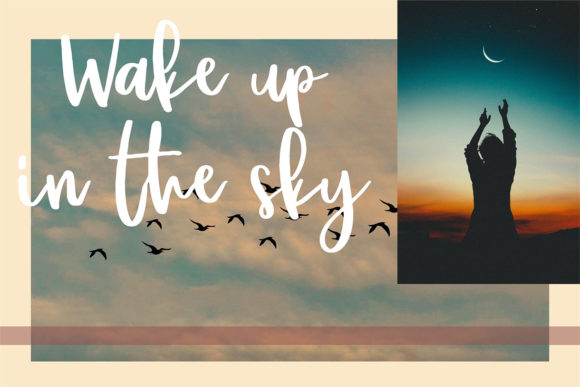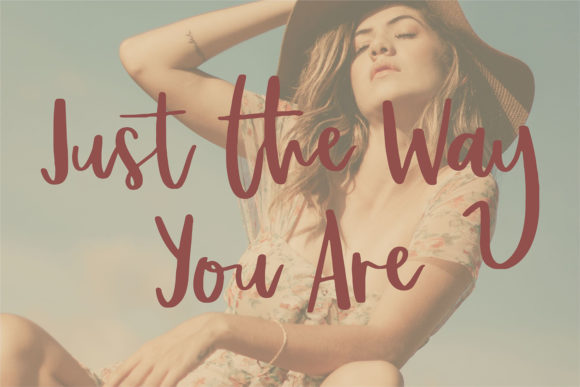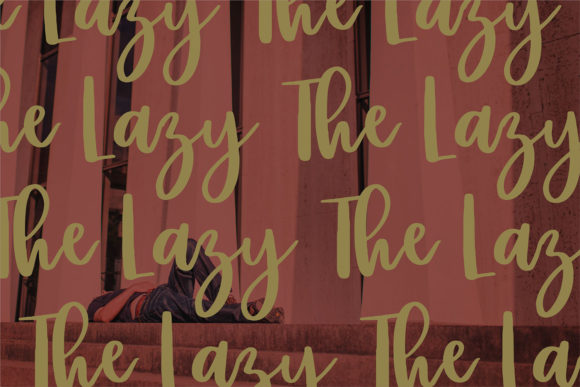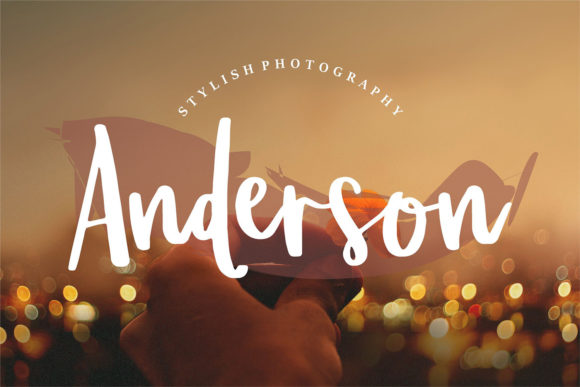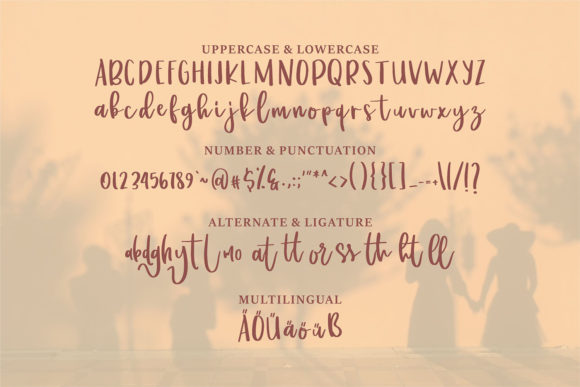
Introducing Bishafa Font: The Ultimate Choice for Bold and Trendy Designs
In the world of graphic design, typography plays a crucial role in creating visually appealing and effective designs. A font can make or break a design, and that’s why choosing the right one is essential. If you’re looking for a bold, asymmetrical, and trendy handwritten font, look no further than Bishafa Font. In this article, we’ll explore the features and benefits of Bishafa Font and why it’s the perfect choice for designers and crafters.
What is Bishafa Font?
Bishafa Font is a bold, asymmetrical, and trendy handwritten font that is designed to make your designs stand out. It’s a unique and beautiful font that adds a touch of elegance and sophistication to any design. Whether you’re creating a logo, branding, or quotes, Bishafa Font is the perfect choice. Its distinctive style and flair make it an excellent option for designers who want to add a personal touch to their work.
Key Features of Bishafa Font
So, what makes Bishafa Font so special? Here are some of its key features:
- Bold and Asymmetrical Design: Bishafa Font has a bold and asymmetrical design that gives it a unique and trendy look.
- Handwritten Style: The font has a handwritten style that adds a personal touch to any design.
- Unique and Beautiful Touch: Every letter in Bishafa Font has a unique and beautiful touch that makes it stand out from other fonts.
Benefits of Using Bishafa Font
So, why should you choose Bishafa Font for your designs? Here are some benefits of using Bishafa Font:
- Creates Eye-Catching Designs: Bishafa Font is perfect for creating eye-catching logos, branding, and quotes that grab attention.
- Adds a Personal Touch: The font’s handwritten style and unique touch add a personal touch to any design.
- Versatile: Bishafa Font can be used for a variety of design projects, from logos and branding to quotes and social media graphics.
- Time-Saving: With Bishafa Font, you can create professional-looking designs in no time.
Who Can Use Bishafa Font?
Bishafa Font is perfect for designers, crafters, and anyone who wants to create visually appealing designs. Here are some professionals who can benefit from using Bishafa Font:
- Graphic Designers: Bishafa Font is a great addition to any graphic designer’s toolkit.
- Log designers: The font’s bold and asymmetrical design makes it perfect for creating logos.
- Branding Experts: Bishafa Font can be used to create unique and memorable branding materials.
- Social Media Managers: The font can be used to create eye-catching social media graphics.
In conclusion, Bishafa Font is a bold, asymmetrical, and trendy handwritten font that is perfect for creating eye-catching designs. Its unique and beautiful touch makes it stand out from other fonts, and its ease of use makes it a great choice for designers and crafters. Whether you’re creating logos, branding, or quotes, Bishafa Font is the ultimate choice. So, download Bishafa Font today and take your designs to the next level!